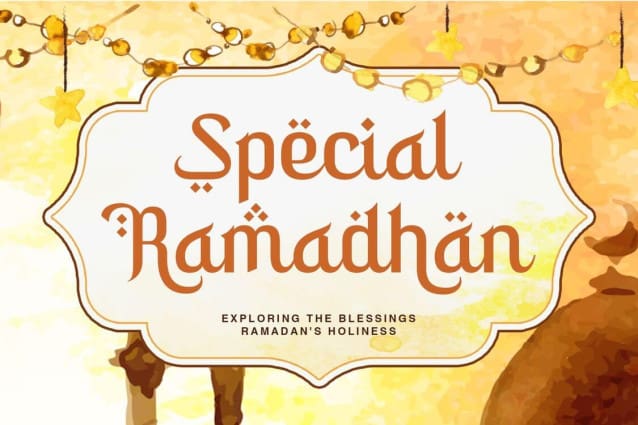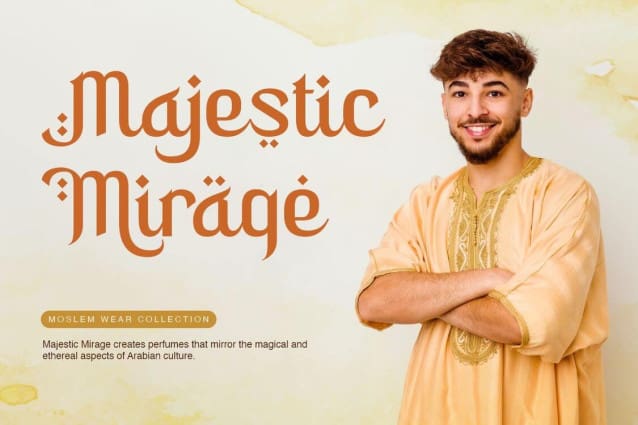
Mutiara Ramadhan Font
Mutiara Ramadhan Font, is an arabic style display font that captures the essence of the holy month of Ramadan. With Its unique and ornate letterforms inspired by traditional Arabic calligraphy, making it perfect for projects related to Ramadan, Islamic art, or Middle Eastern culture.